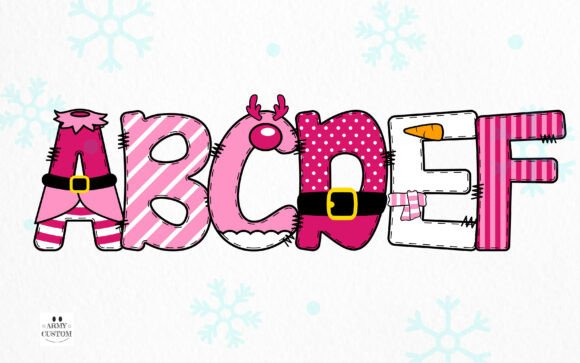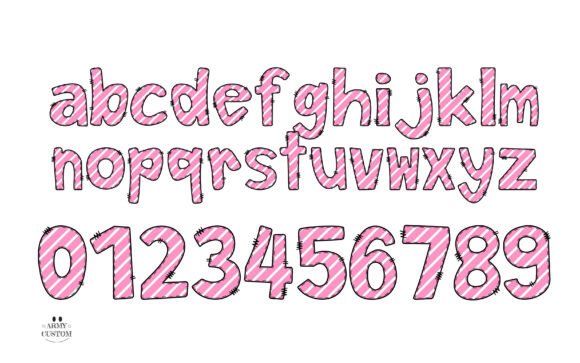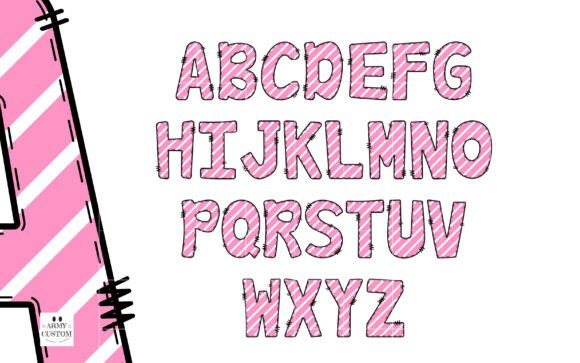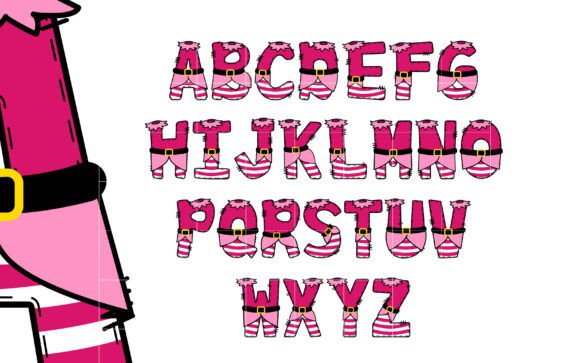
Christmas Bundle Font: Add a Touch of Whimsy to Your Holiday Designs
It’s the most wonderful time of the year, and what better way to celebrate than with a festive font that’s bursting with holiday cheer? Introducing the Christmas Bundle Font, a whimsical and playful font that’s perfect for adding a touch of magic to your holiday designs. In this article, we’ll dive into the details of this delightful font and explore how you can use it to create stunning holiday projects.
A Font that’s Full of Holiday Cheer
The Christmas Bundle Font is a decorative display font that’s designed to bring joy and festivity to your designs. Each letter is carefully crafted with holiday-themed embellishments, including reindeer antlers, candy stripes, Santa belts, scarves, and snowman noses. The font is wrapped in a vibrant pink palette, giving it a fun and modern twist on classic Christmas vibes.
Perfect for a Variety of Holiday Projects
This versatile font is perfect for a wide range of holiday projects, including:
- Holiday cards: Create stunning holiday cards that will make your loved ones feel special.
- Shirts and apparel: Add a touch of festive flair to your holiday shirts and apparel.
- Mugs and gifts: Make your holiday gifts and mugs stand out with this fun and playful font.
- Gift tags: Create adorable gift tags that will add a personal touch to your gifts.
- Invitations: Design festive holiday invitations that will set the tone for your holiday party.
- Sublimation projects: Use this font to create stunning sublimation projects, such as holiday ornaments and decorations.
- Full A-Z uppercase and lowercase letters
- Numbers 0-9
Tips for Using the Christmas Bundle Font
Here are a few tips for getting the most out of the Christmas Bundle Font:
- Use the font to create custom holiday gifts, such as personalized ornaments and decorations.
- Pair the font with other festive design elements, such as holly and berries, to create a cohesive holiday look.